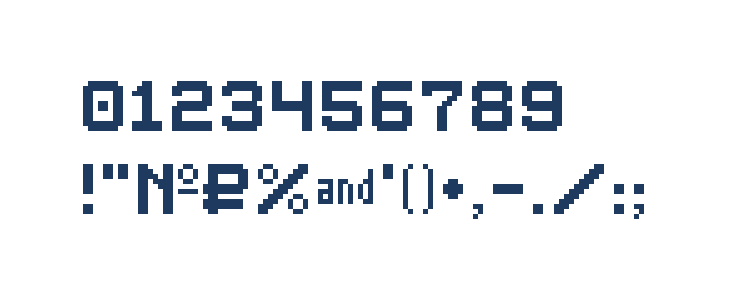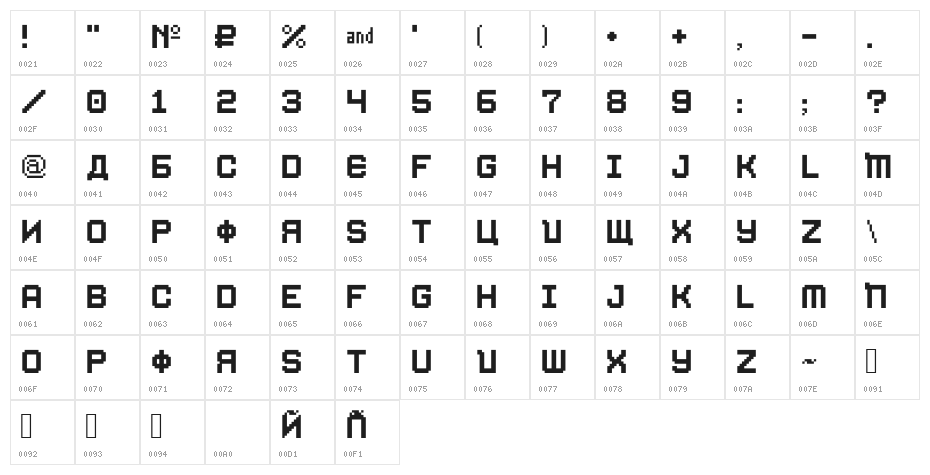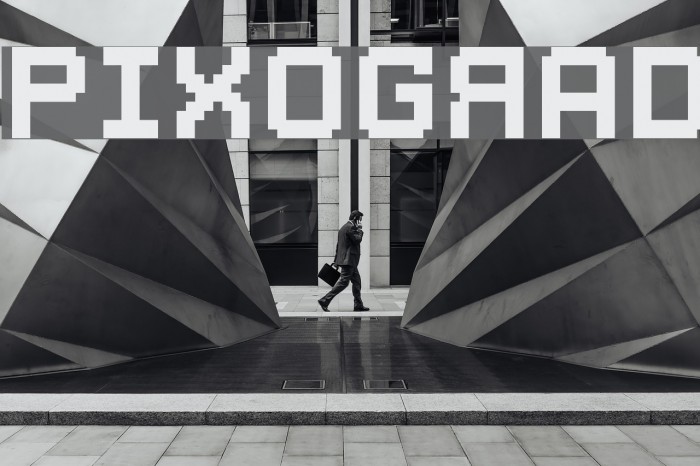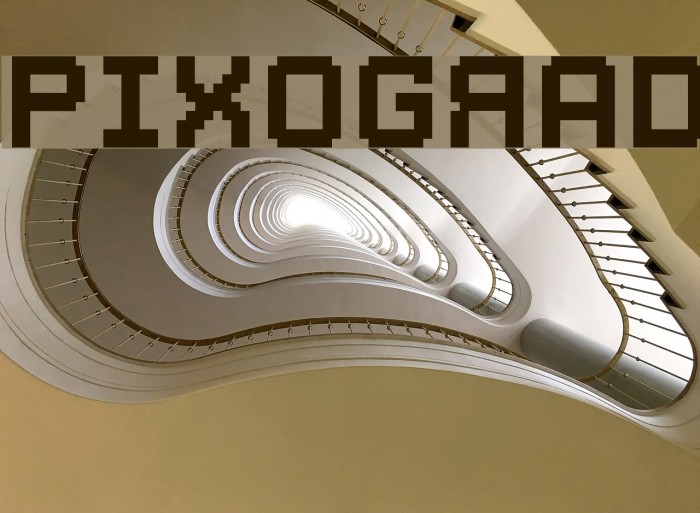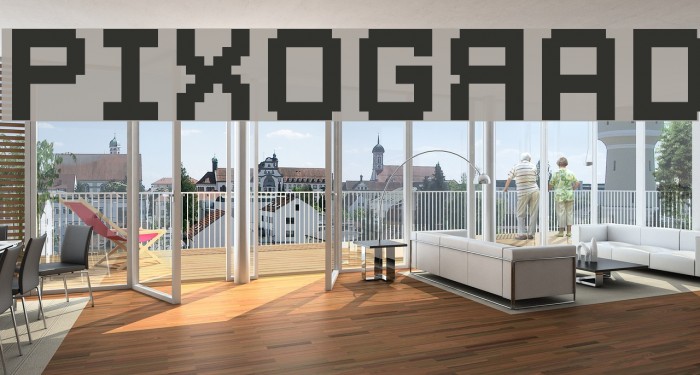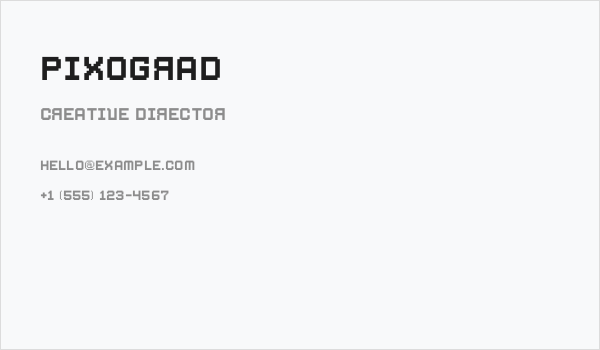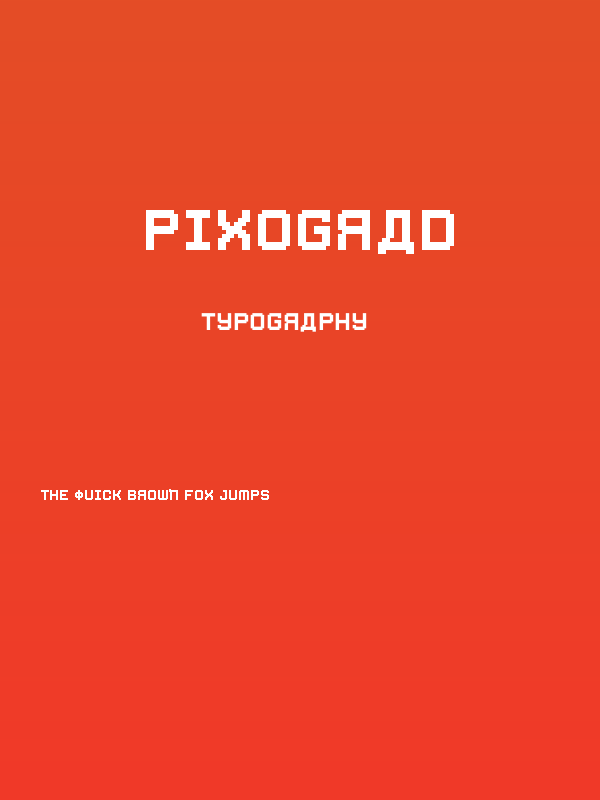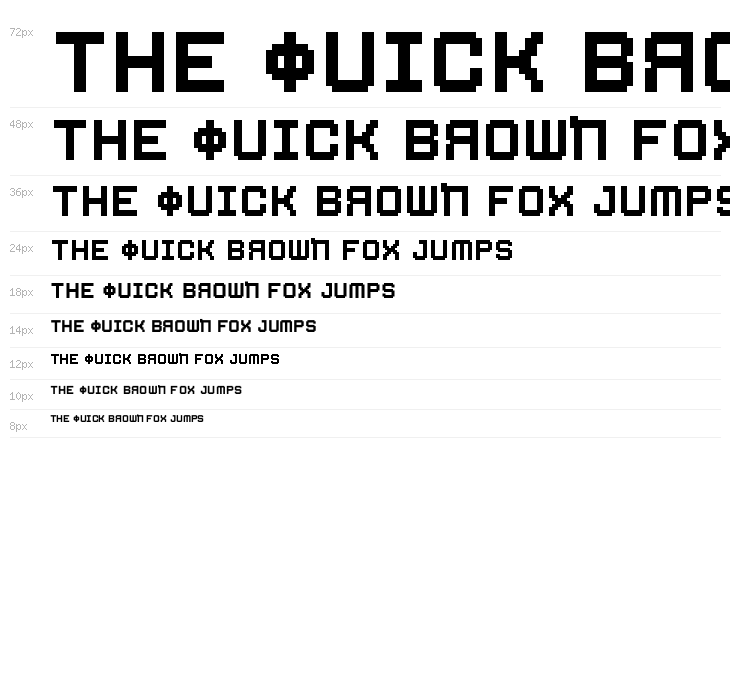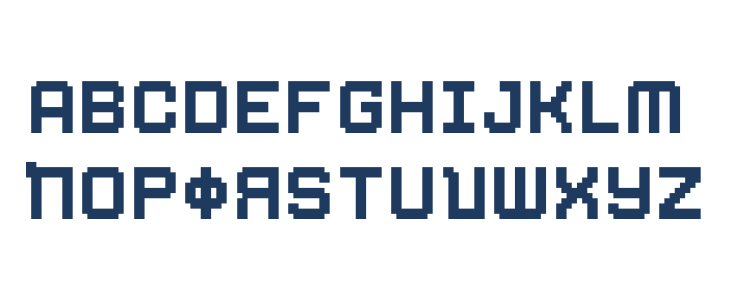
Pixograd Font
Pixograd Description
This font features a pixelated, blocky design reminiscent of early digital displays and video games. Each character is composed of square pixels, giving it a distinctly retro and digital aesthetic. The uppercase and lowercase letters maintain a uniform height, contributing to a monospaced appearance. The numbers and special characters are crafted with the same pixelated style, ensuring consistency across all glyphs. This font's simplicity and clarity make it ideal for projects that require a vintage or tech-inspired look.
| Use Case | Logos, Headlines, Digital interfaces |
| Proposed Projects | Ideal for video game design, retro-themed posters, digital art, and tech-related branding. |